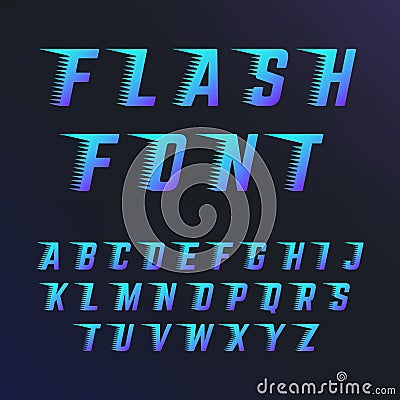
Abc Letters With Speed Lines Effects. Vector Font Fits To Fast Motion
Abc letters with speed lines effects. Vector font fits to fast motion. Dynamic typography alphabet lettering illustration